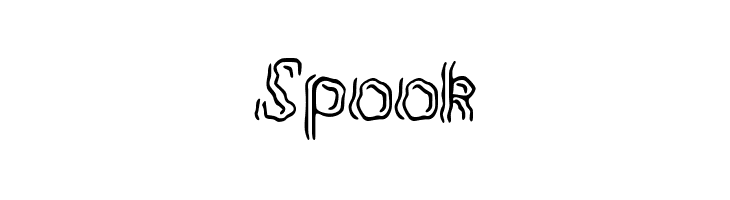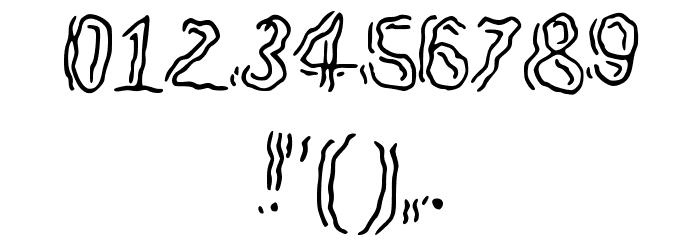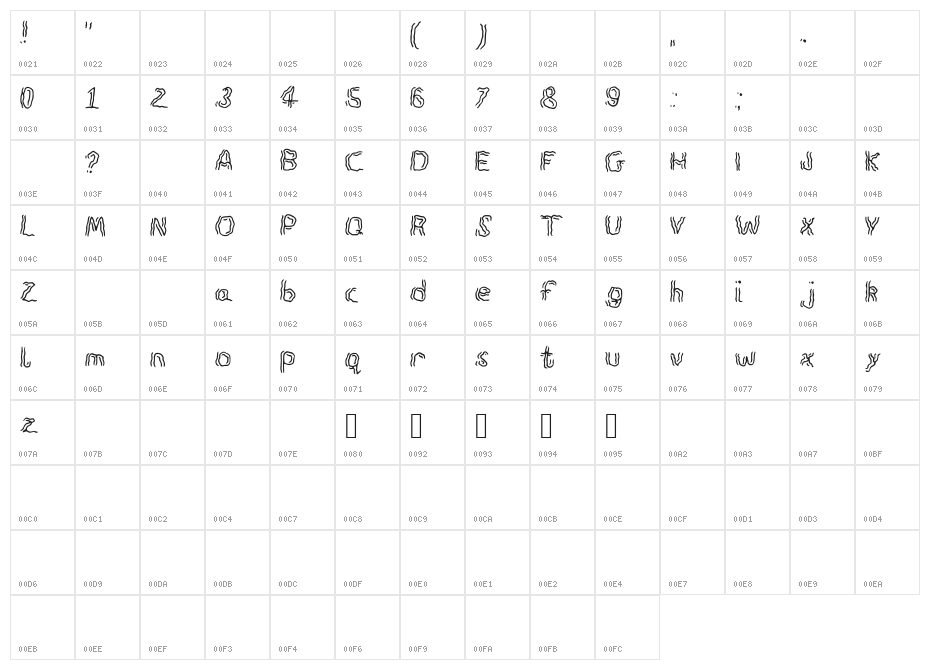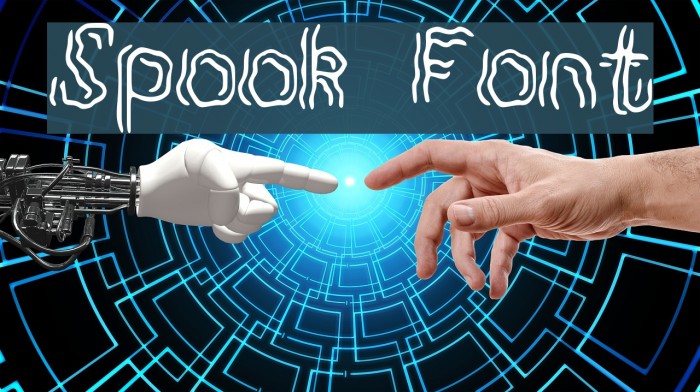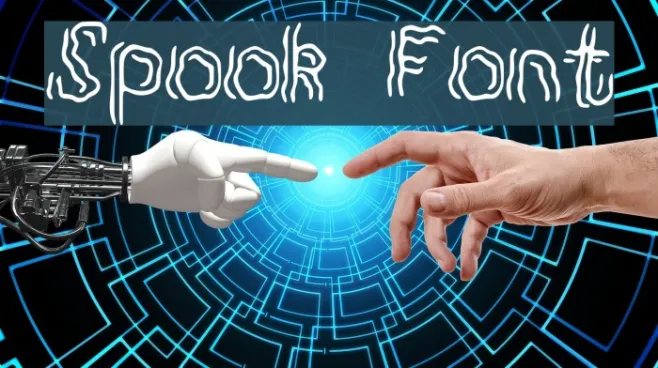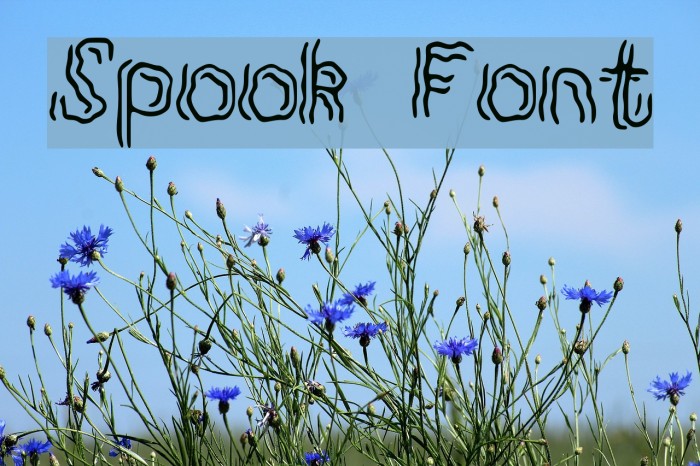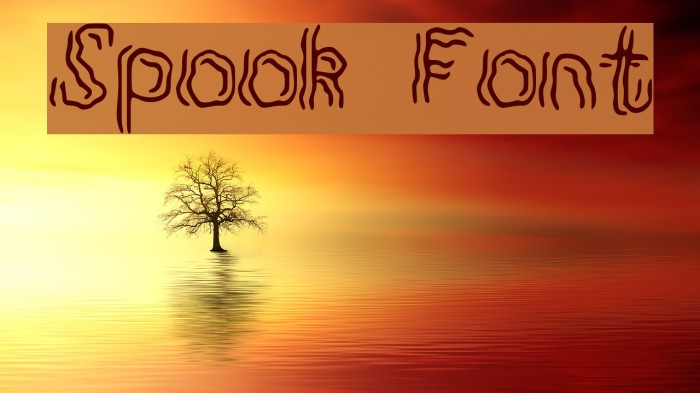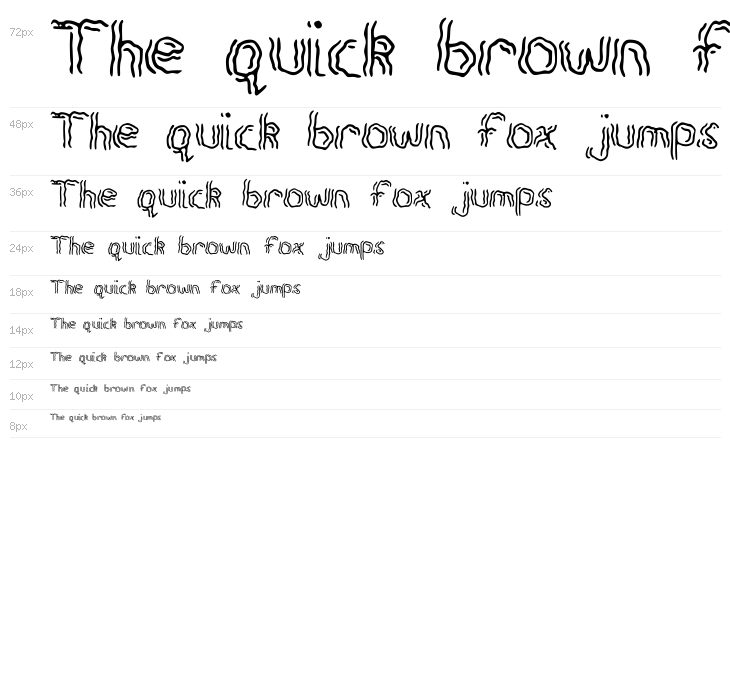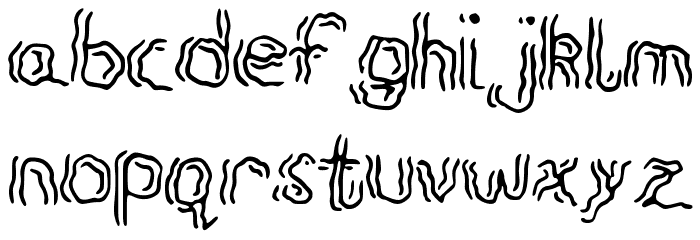
Spook Font
Spook Description
This font features a unique, wavy design that gives each character an eerie, distorted appearance. The letters have an irregular, hand-drawn quality, with lines that seem to ripple and twist, creating a sense of movement. The overall effect is reminiscent of something spooky or otherworldly, making it ideal for themes related to Halloween or horror. Despite its unconventional style, the font maintains good legibility, with each character distinct and recognizable. The numbers and special characters follow the same wavy pattern, ensuring consistency throughout the typeface.
| Use Case | Headlines, Posters, Themed Events |
| Proposed Projects | Ideal for Halloween-themed designs, horror movie posters, haunted house flyers, and any project requiring a spooky or unsettling aesthetic. |